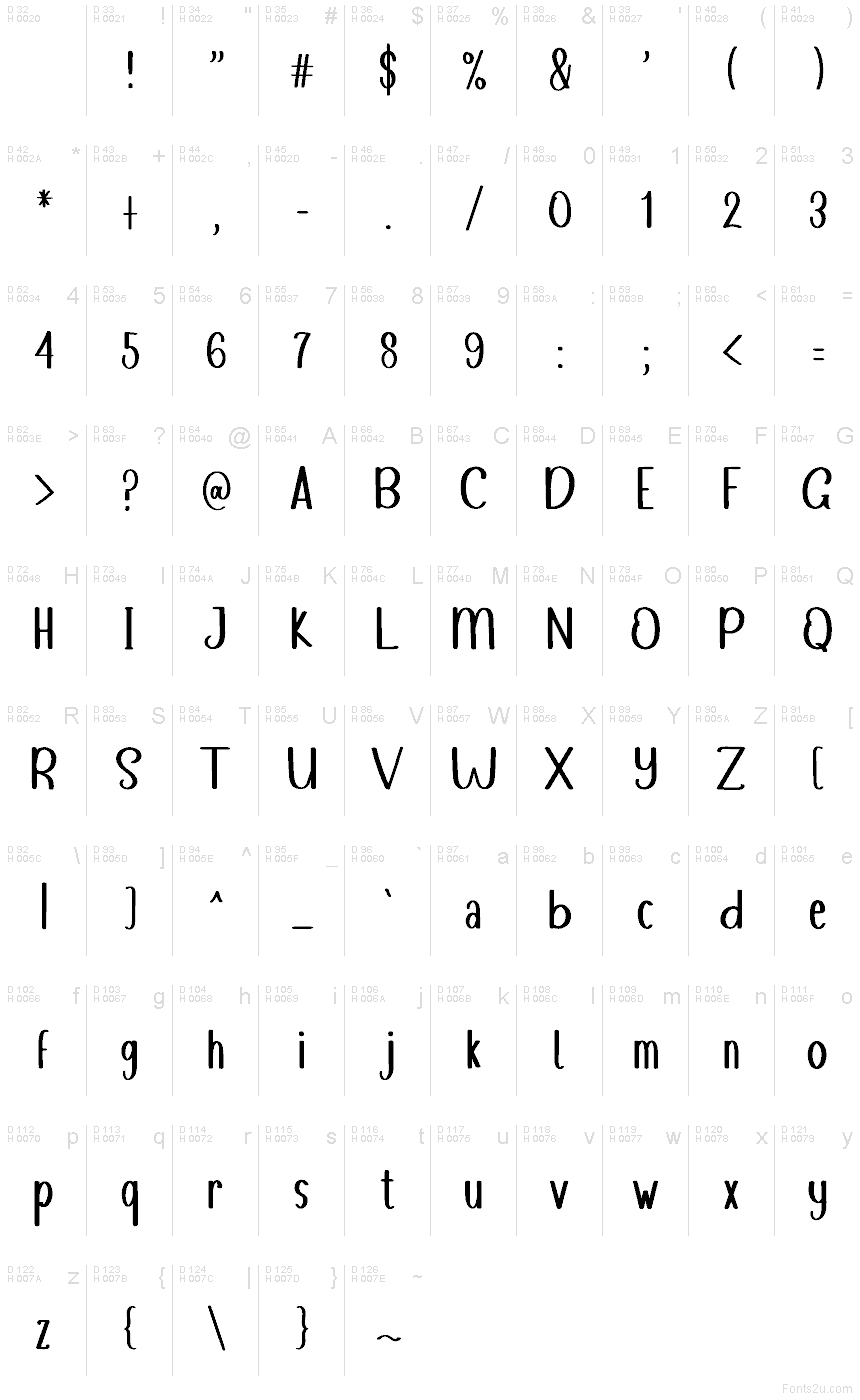
HOME CLOUD
Home Cloud font by One Design is a handwritten font with a friendly and approachable vibe. Its rounded letters showcase casual elegance and modern appeal, bringing together an exceptionally versatile typeface. Every glyph appears as if written in a relaxed fashion by hand, always succeeding in getting both the message and its intended tone across.